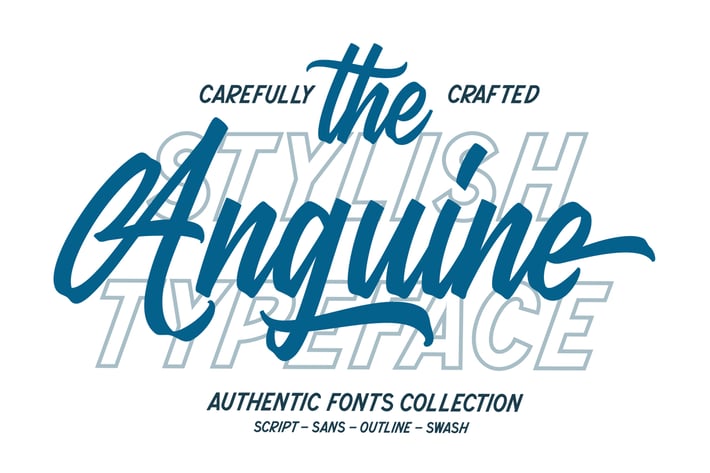
Anguine - Stylish Typeface
Introducing Anguine - Stylish Typeface which has a modern hand lettering style. So it looks natural like a handmade. This font is best used for your design project that has the concept of fun, girly, romantic and elegant. Can also be applied to the design of a logotype, header website, wedding logo, romantic design, makes some lettering a quote, T-shirt design etc.